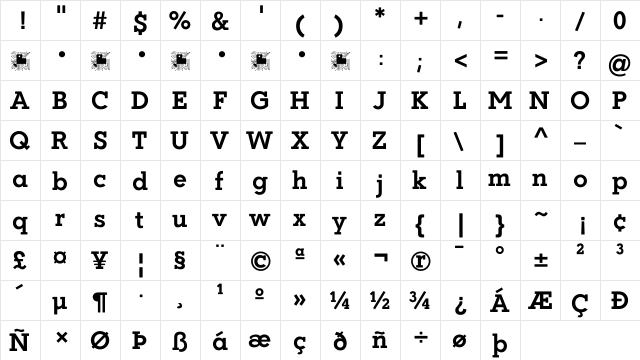
Coltan Gea Bold
Design Context for Coltan Gea Typeface
Coltan Gea is a composed and adaptable typeface that performs quietly and consistently across a wide range of design contexts. Its bold stroke weight gives it real presence on the page.